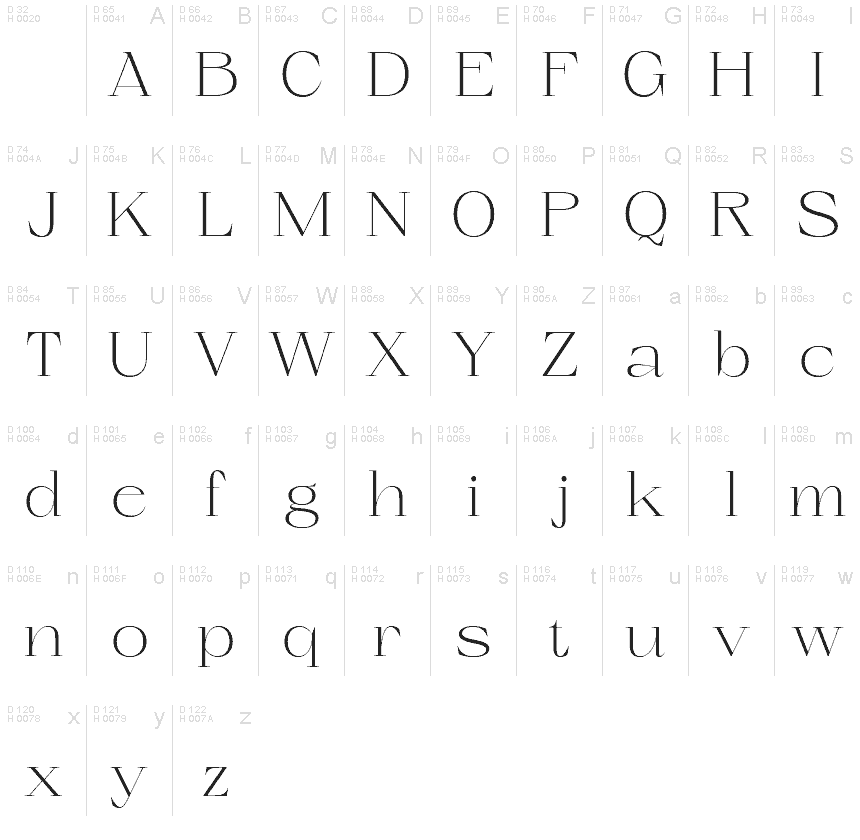
CS Ramsey Regular Demo
CS Ramsey font by Craft Supply Co. is an expanded serif that combines alluring sophistication and classic charm. The elegance of each letter delivers a high-fashion feel empowered by exquisite alternates and swashes. Its contrasting refined strokes highlight effectively throughout the text in addition to supporting its heightened overall appeal.
Free to use and perfect for making magnificent magazine covers, CS Ramsey will also look wonderful in typography projects for invitation cards, branding, logos, business cards, website headlines, book titles, blog covers, quotes etc.